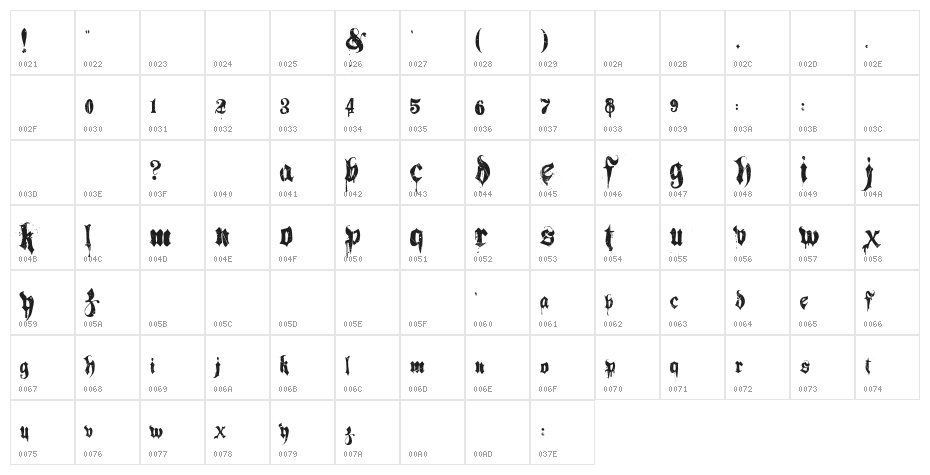
HacjiuzaDirty Font
HacjiuzaDirty Description
This font features a bold, distressed blackletter style with a grunge effect, giving it a worn and aged appearance. The characters are intricately designed with sharp, angular edges and a heavy emphasis on vertical strokes. The texture adds a unique, gritty feel, making it stand out as a decorative typeface. The uppercase and lowercase letters maintain a consistent style, with numbers and special characters following the same aesthetic. This font is ideal for projects that require a dramatic and historical touch, such as posters, album covers, or themed events.
| Proposed Projects | Ideal for posters, album covers, themed events, or any project needing a dramatic, historical touch. |